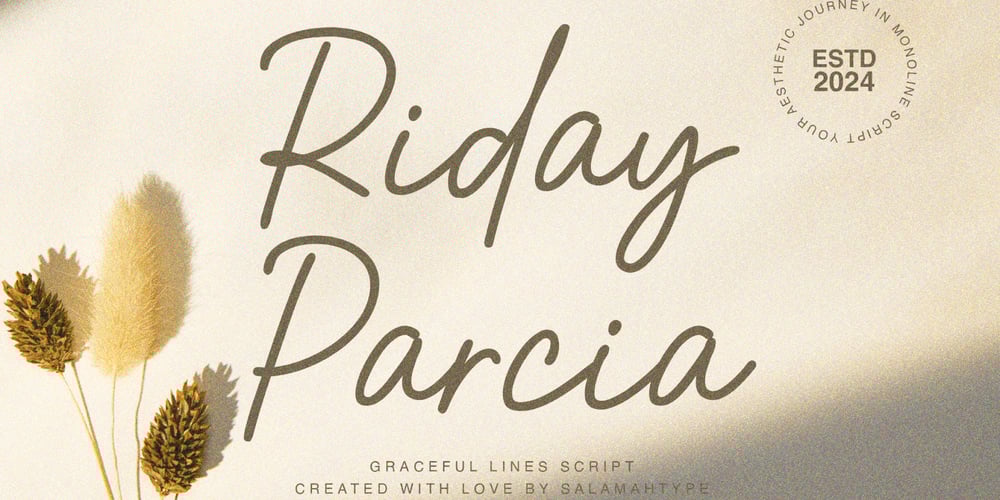
Riday Parcia Font Family was designed by Aswangga Sadike and published by Salamahtype. Riday Parcia contains 1 styles and family package options. A beautiful monoline script font suitable for design projects such as logos, social media, advertising, product packaging, product design, labels, photography, watermarks, invitations, stationery and more.Feature :– Uppercase and lowercase letters– Numbers and punctuation– Multilingual– Ligatures– Alternates